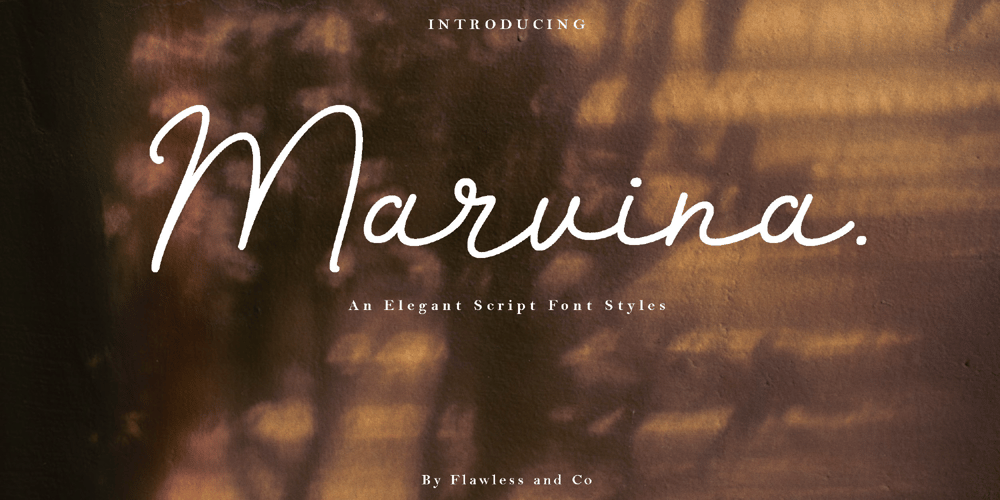
Marvina
Marvina font
Marvina Font Family was designed by Achmad Yani and published by Flawlessandco. Marvina contains 1 styles and family package options. Marvina is a handwritten Script Font that made with a classy style in each character, this style gives a feel of elegant font type.There’s some connected letters and some alternates that suitable for any graphic designs such as branding materials, t-shirt, print, business cards, logo, poster, t-shirt, photography, quotes .etcThis font support for some multilingual. Also contains uppercase A-Z and lowercase a-z, alternate character, numbers 0-9, and some punctuation.for more license, you can check in flawlessand.coIf you need help, just write me! Thanks so much for checking out my shop!